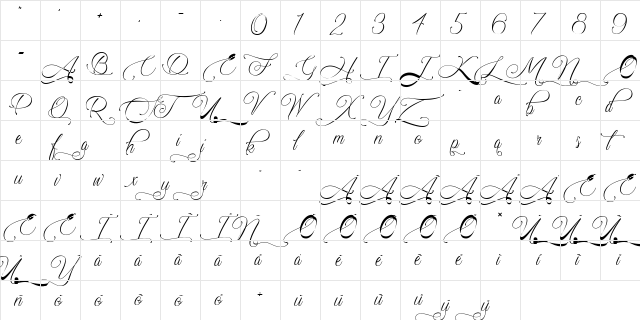
Chiangmai Hostel Regular
| Foundry | Typhoon Type - Suthi Srisopha |
| Designer | Typhoon Type - Suthi Srisopha |
Design Context for Chiangmai Hostel Typeface
Chiangmai Hostel is a composed and adaptable typeface that performs quietly and consistently across a wide range of design contexts.